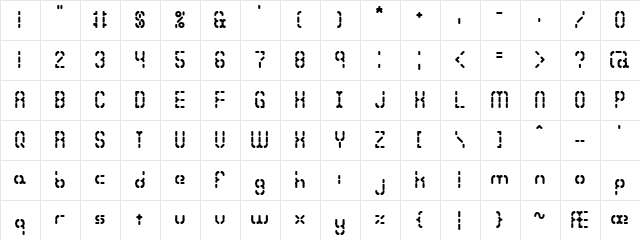
Bleak Segments BRK Regular
Design Context for Bleak Segments BRK
Bleak Segments BRK is a composed and adaptable typeface that performs quietly and consistently across a wide range of design contexts.